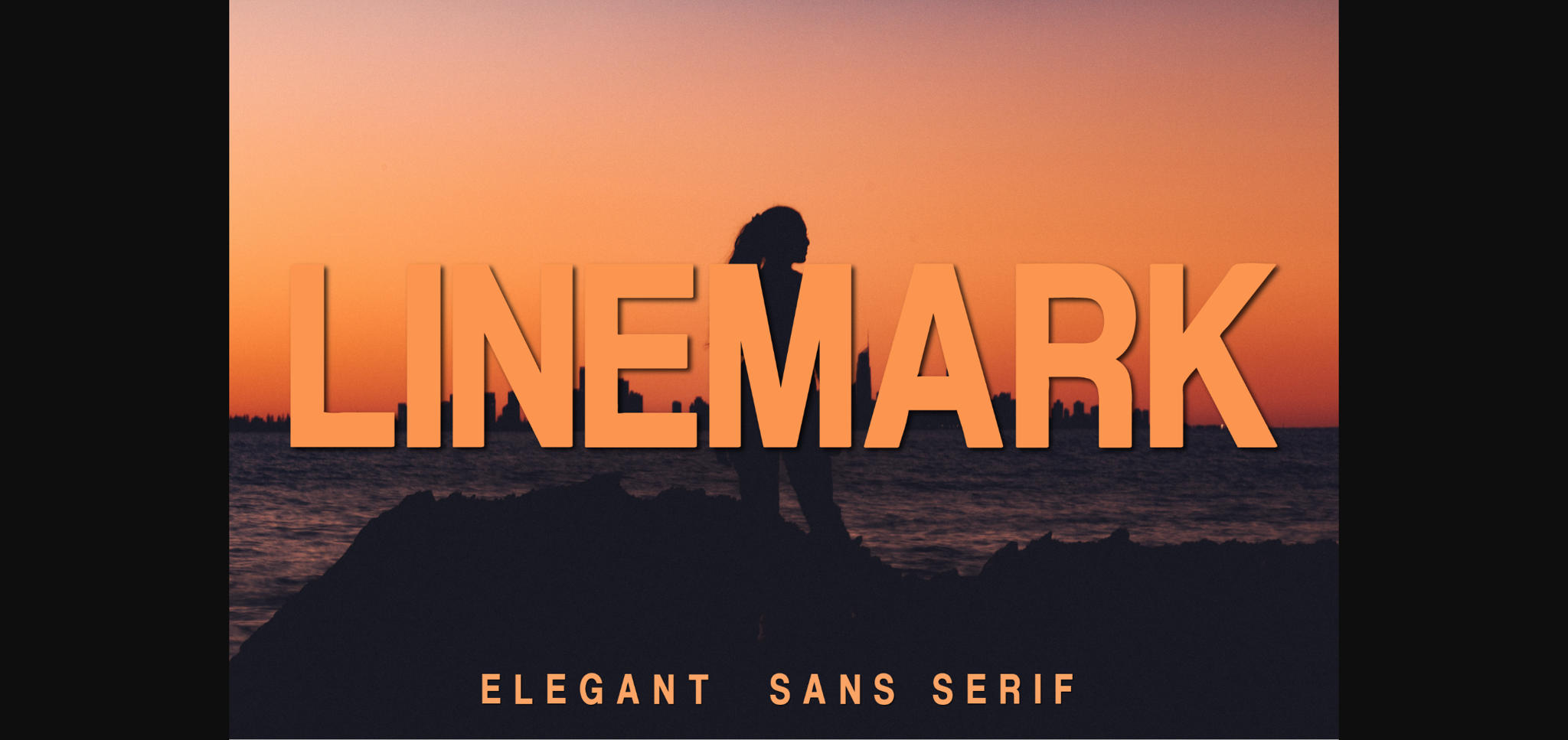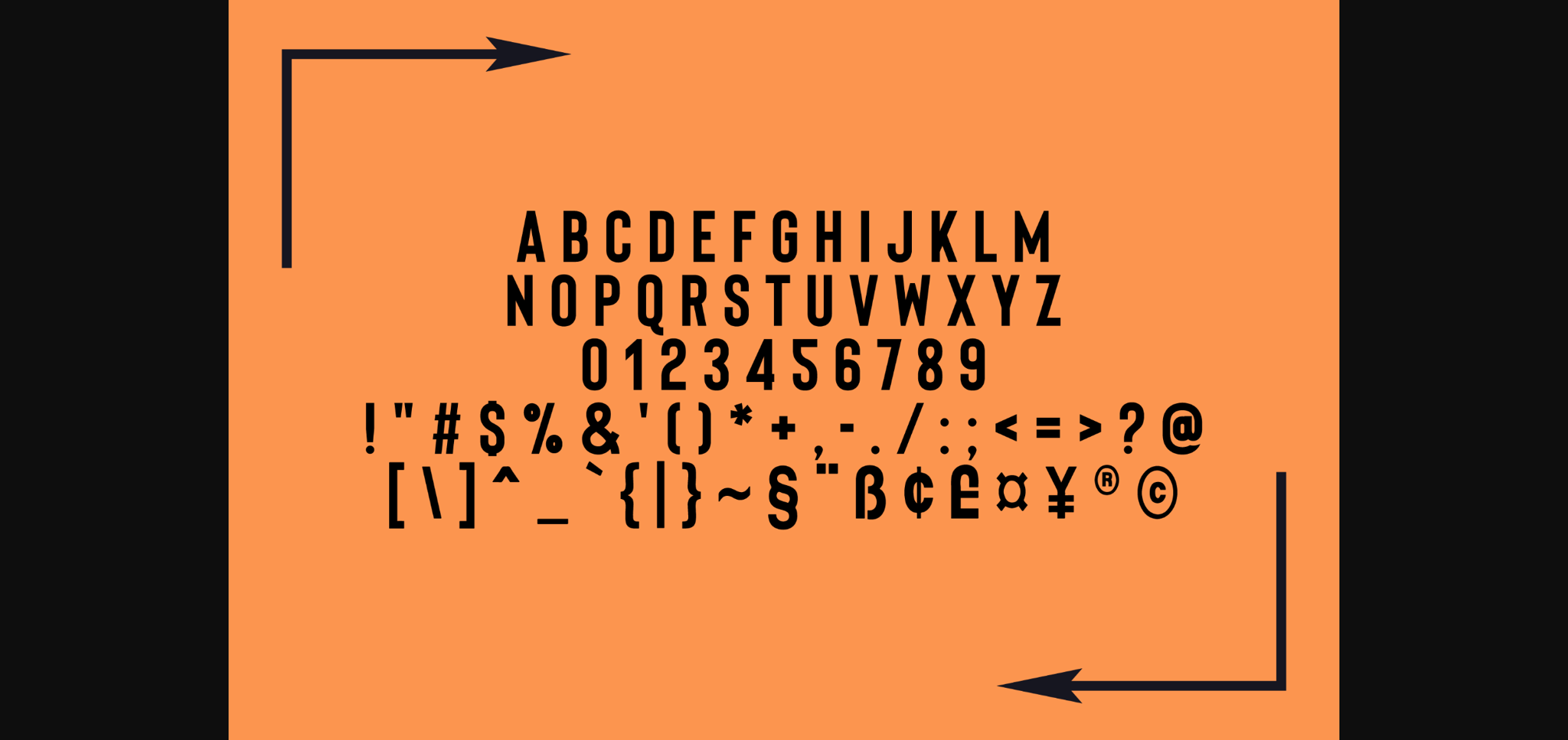
HomeSans Serif FontsLinemark Font Sans Serif Fonts Linemark Font FacebookXPinterestWhatsApp 1 of 4 ... Linemark Font Poster 2... Linemark Font Poster 3... Linemark Font Poster 4... About Linemark Font Linemark beautifully illustrates an elegant and minimalist impression in each character. At the same time, it is an incredibly sturdy font, making it great for any sans-serif occasions. DOWNLOAD NOW People also explored Renathalia Signature Font Gaffer Font Bag Sack Vertical Mockup The Relmond Font To Do – Weekly Font Online Font Vacation Brush Font Asthenom Font Sempla Font 716 0 TagsLinemark Font Previous articleChelsy FontNext articlePolers Font LEAVE A REPLY Cancel reply Comment: Please enter your comment! Name:* Please enter your name here Email:* You have entered an incorrect email address! Please enter your email address here Website: Save my name, email, and website in this browser for the next time I comment. Personal Use Free Kilsonburg Personal Use Free Read more about this font Sarwendah Personal Use Free Read more about this font Bigstone Personal Use Free Read more about this font Bonhomie Personal Use Free Read more about this font BLOG How to Install and Use Fonts on Windows, macOS, and Web Projects How to Install and Use Fonts on Windows, macOS, and Web Projects Fonts are a crucial part of design and branding. Whether you’re designing a... How to Cut Any Font on Cricut: Convert a Font to SVG (Free) Top 10 Handwritten Fonts That Elevate Your Designs Where to Buy American Fonts Online in 2024